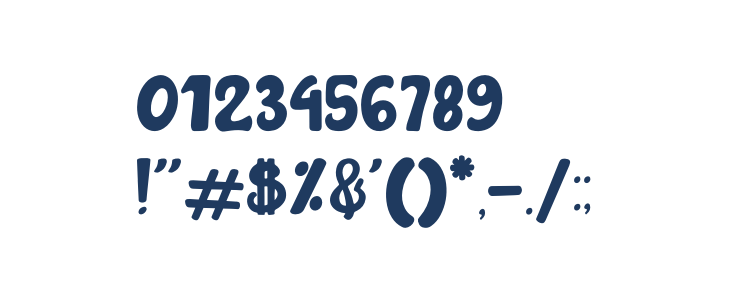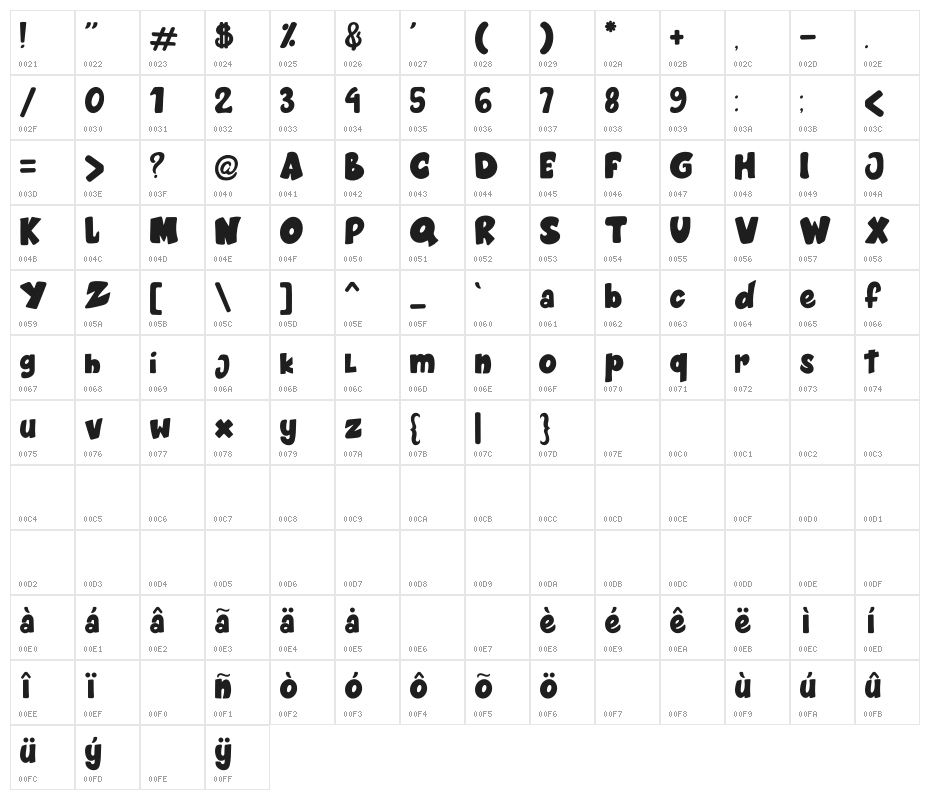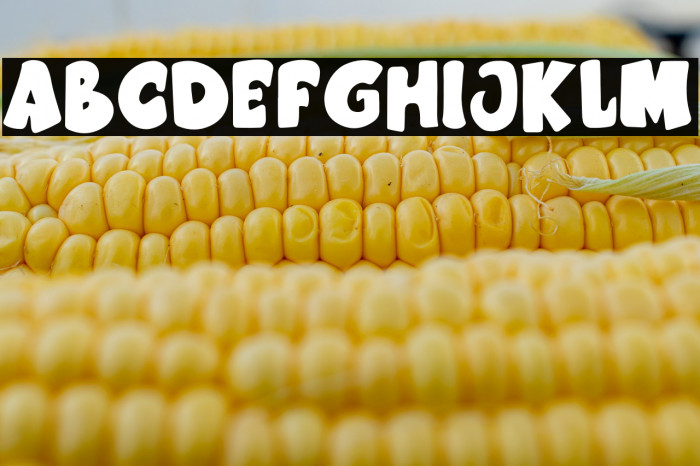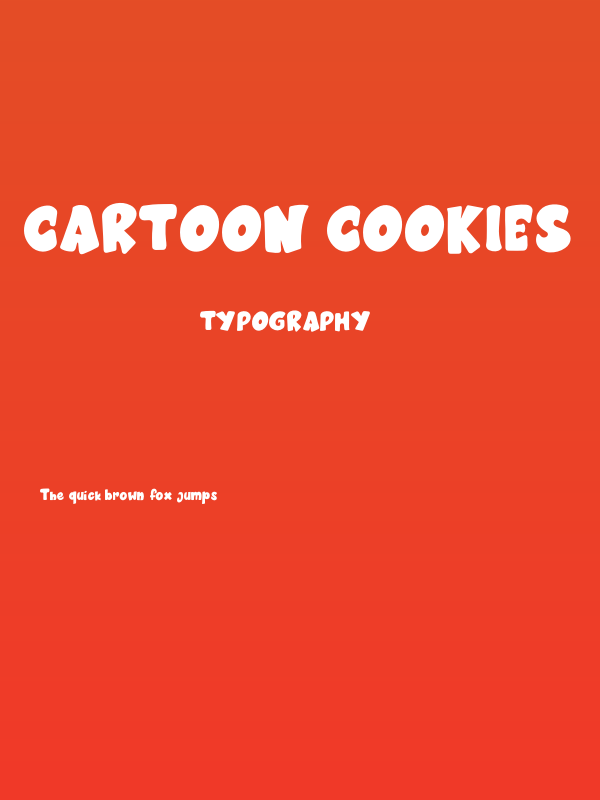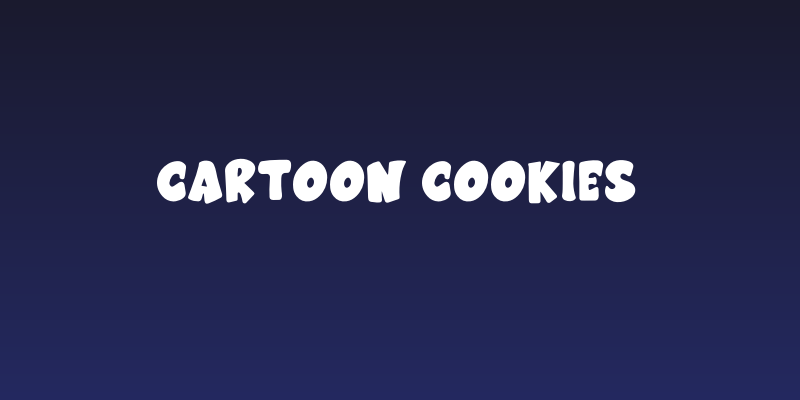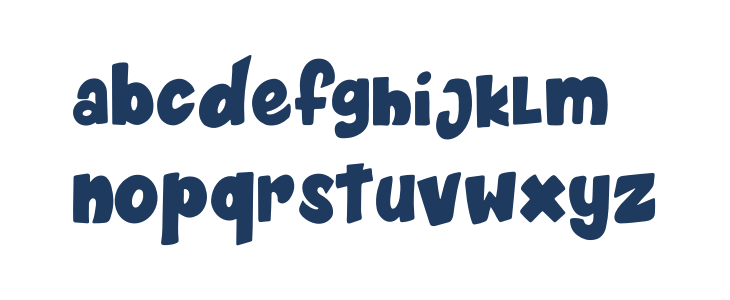
Cartoon cookies Font
Cartoon cookies Description
This playful and whimsical font features bold, rounded characters with a cartoonish flair. The letters are thick and slightly irregular, giving them a hand-drawn appearance that adds a sense of fun and creativity. The uppercase and lowercase letters maintain a consistent style, with exaggerated curves and a bubbly aesthetic. Numbers and special characters follow the same design principles, ensuring a cohesive look across all text elements. This font is perfect for projects that require a lighthearted and informal touch, such as children's books, comic strips, or playful branding.
| Proposed Projects | Ideal for children's books, comic strips, playful branding, and informal posters. |